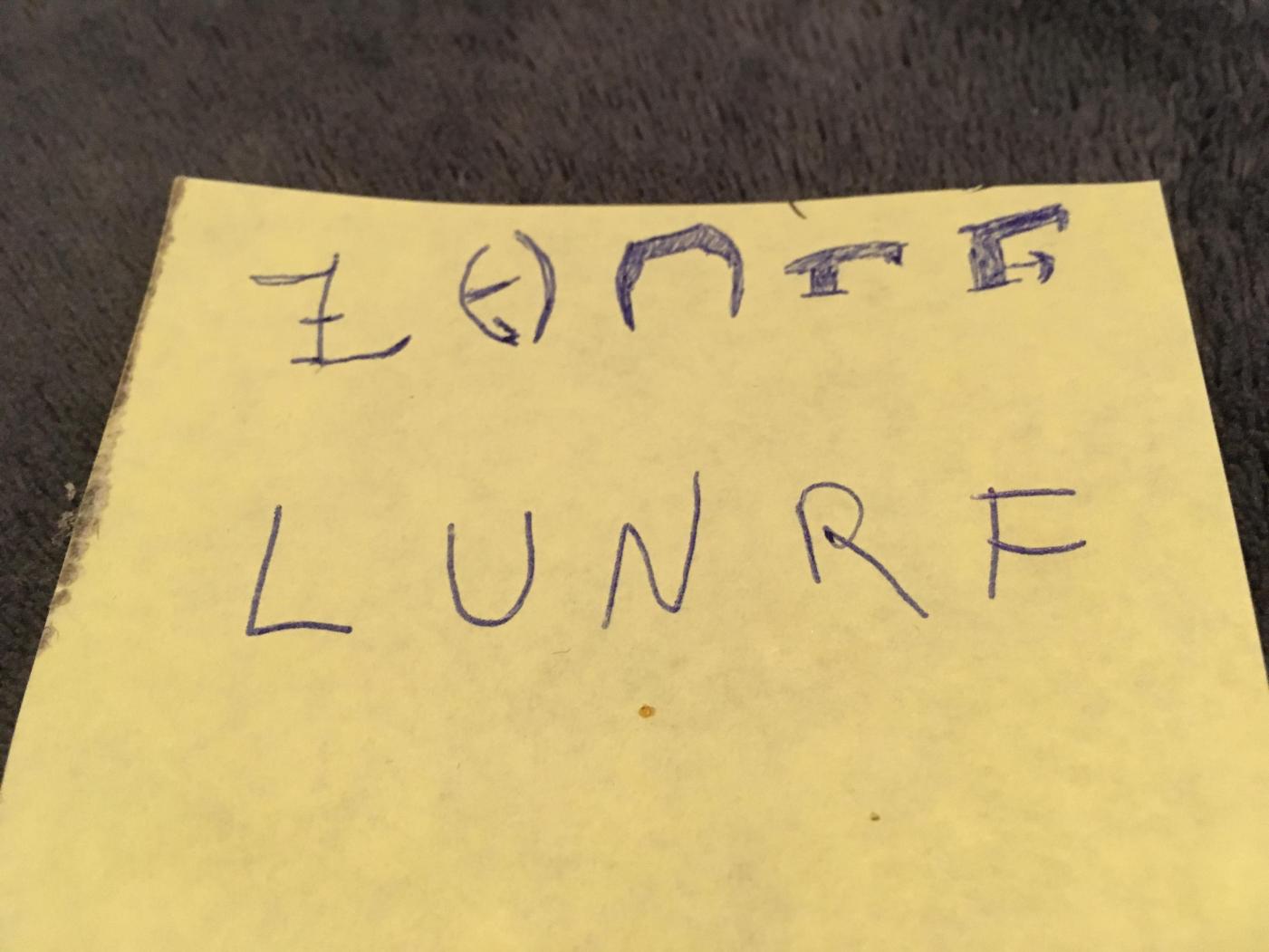
Unique font from tattoo shop. Faded and difficult to read.
Just looking for this font to properly touch up tattoo and have for future reference.  I received this in 2008 in Salt Lake City.  The artist of coarse just pulled it off of the internet.  The shop is gone now.  The "U" on the middle finger and "L" on the pinky are quit unique but it feels like this may be more difficult than easy.  It says "Under" (Middle), "Ground" (Ring), "Life" (Pinky).  The "D's" look like a half note with a flag just like in sheet music (except the flag wouldn't be there of coarse).  Besides the first letters everything looks like lowercase except the "F", in my eye it has an uppercase appearance.  I could be way off here but at least some of it reminds me of an Asian style, Chinese or Japanese.   I'v included my own drawing of a few letters just to aid, though I am no artist.
Given the erosion of shapes due to various factors, it is impossible to determine what the original artist used as a reference for the art, if any. An experienced tattooist could probably touch it up reasonably well.
I agree.  Its probably impossible and there are certainly artists that can touch it up.  But he did have a reference, he found this font on the internet trying to match the custom I brought in.  And personally I just enjoy the font so I'll keep looking.  Thanks.
This is pure guess work from an over active creative mind, fuelled by rice wine and beer. From your rough (and it is rough) sketch and your description where you say "Asian, Chinese or Japanese".
Take a look at "Sho" from Adobe.
There are a few letters from the Milk Shake Fraise font that are almost identical such as the capital "L" and lower case "r".  I wonder if anybody knows a similar font to this bizarrely named font.